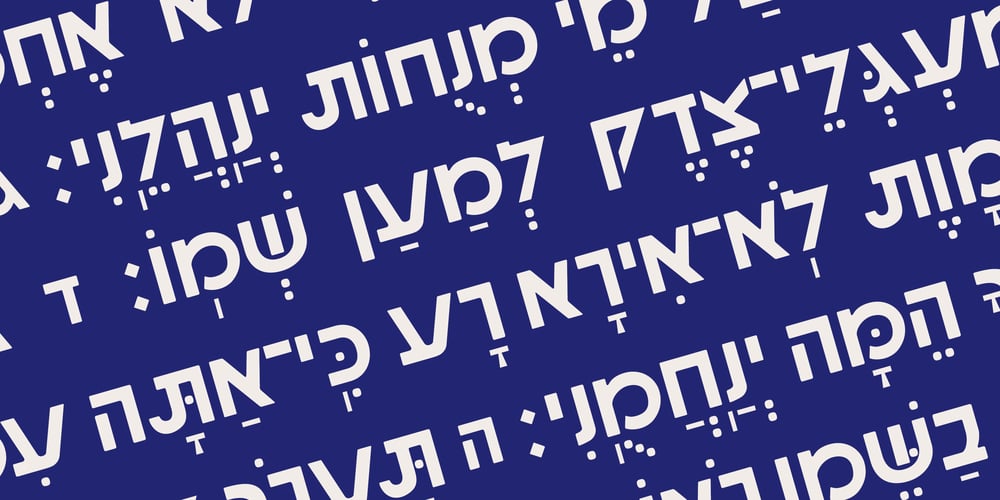
Hebrew Gothic Std Font Family was designed by Sami Artur Mandelbaum and published by Samtype. Hebrew Gothic Std contains 3 styles and family package options. This is a modern font inspired in Avant Garde Gothic Latin font.There are 8 ligatures and You can type the Nekudot in themThis font is for logos, covers and small textsThis font has the modern Hebrew punctuation: Shevana, Kamatz Katan, Dagesh Hazak, and Cholam Chaser.